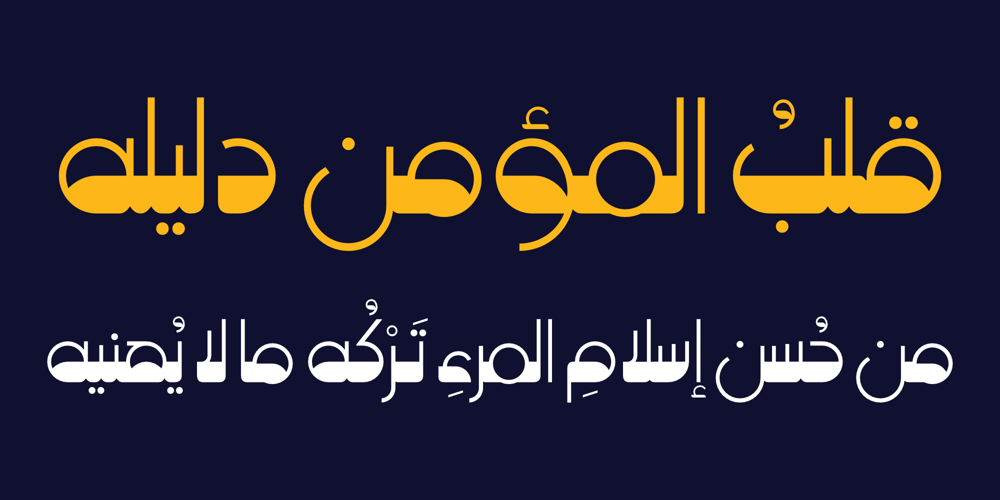
Hasan Elham
Hasan Elham font
Hasan Elham Font Family was designed by Hasan Abu Afash and published by Hiba Studio. Hasan Elham contains 1 styles and family package options. Hasan Elham is a modern Kufi font with a unique twist, featuring round shapes that add a fresh and contemporary touch. This decorative font combines mechanical proportions with artistic flair, making it ideal for titles and graphic projects. It supports Arabic, Persian, and Urdu, catering to a diverse range of linguistic needs.